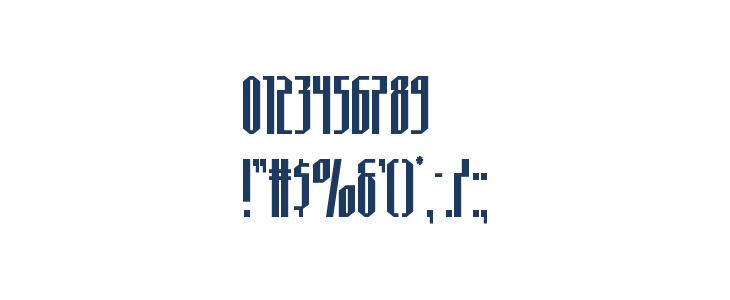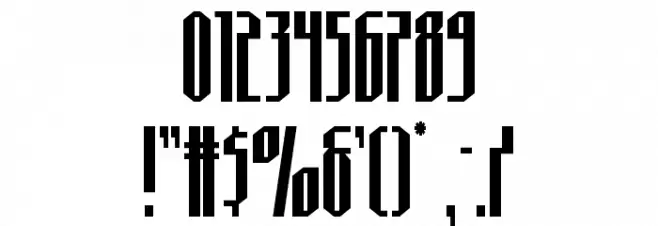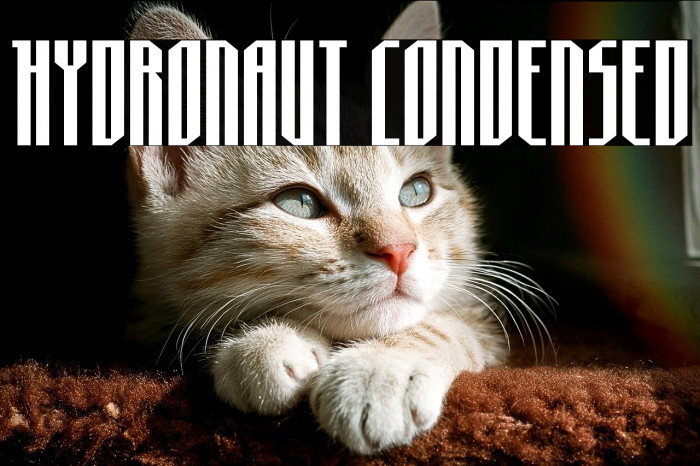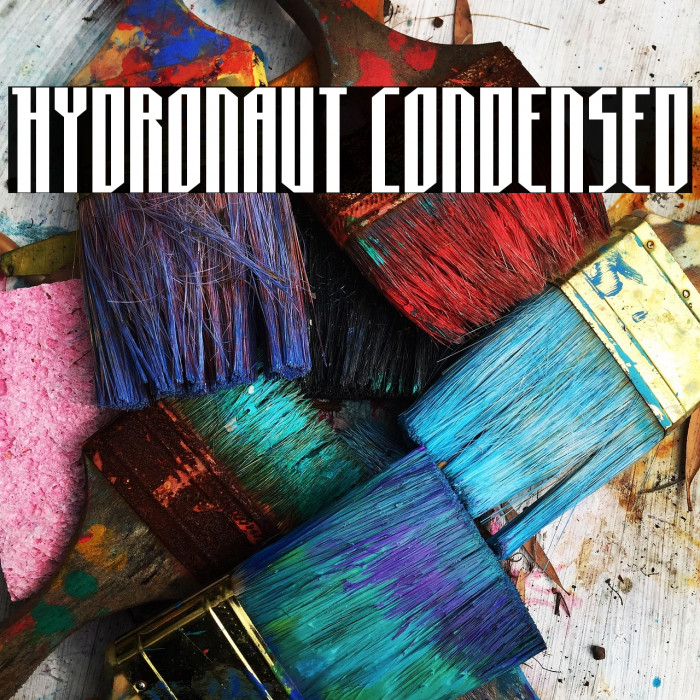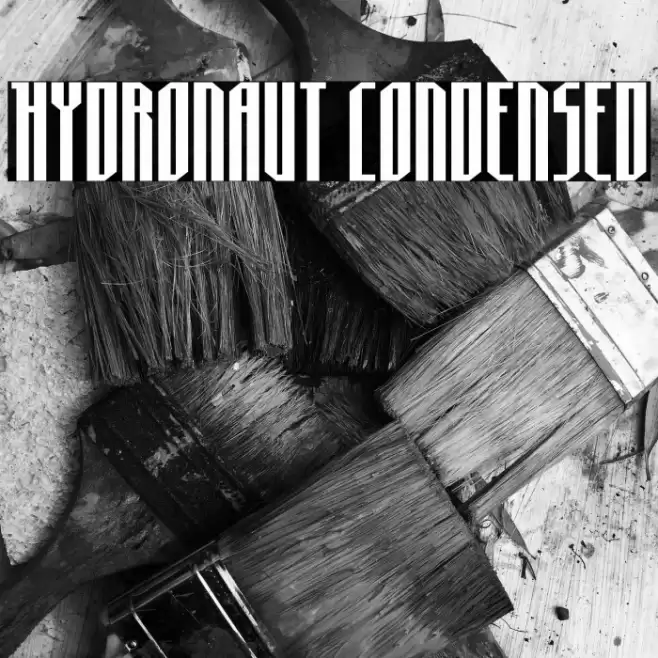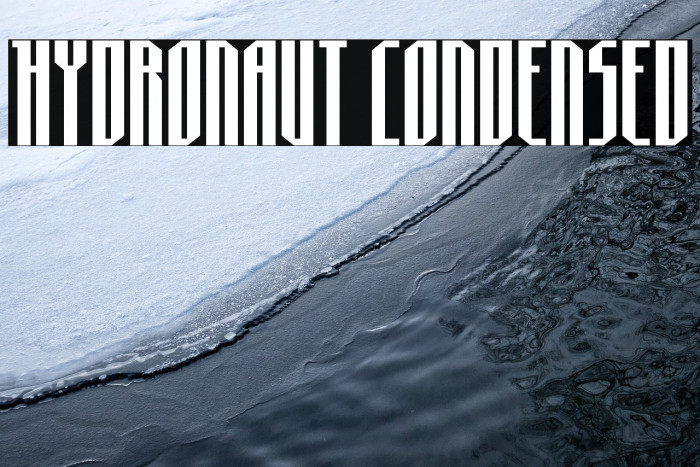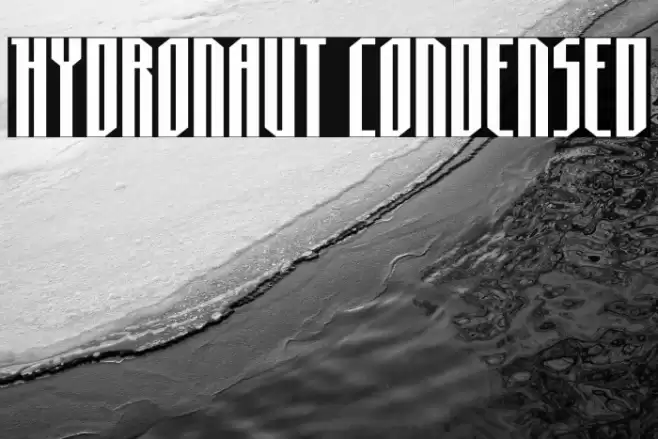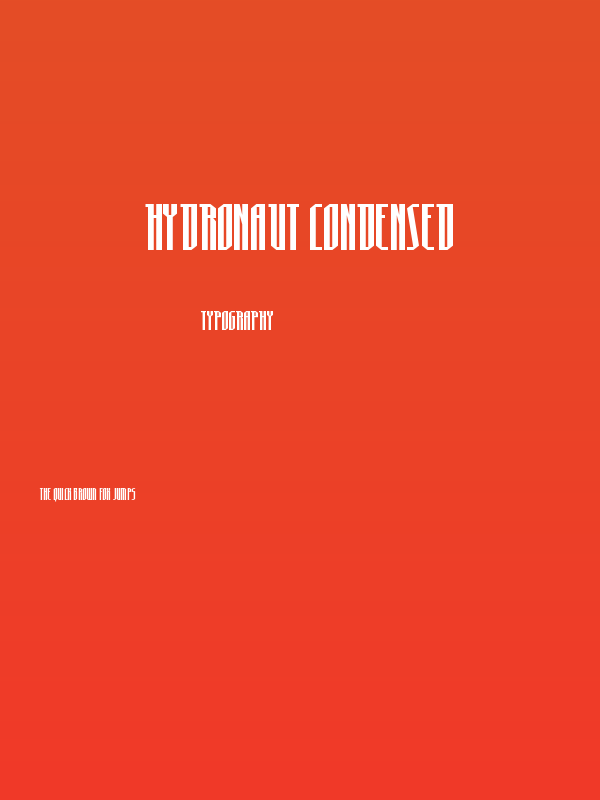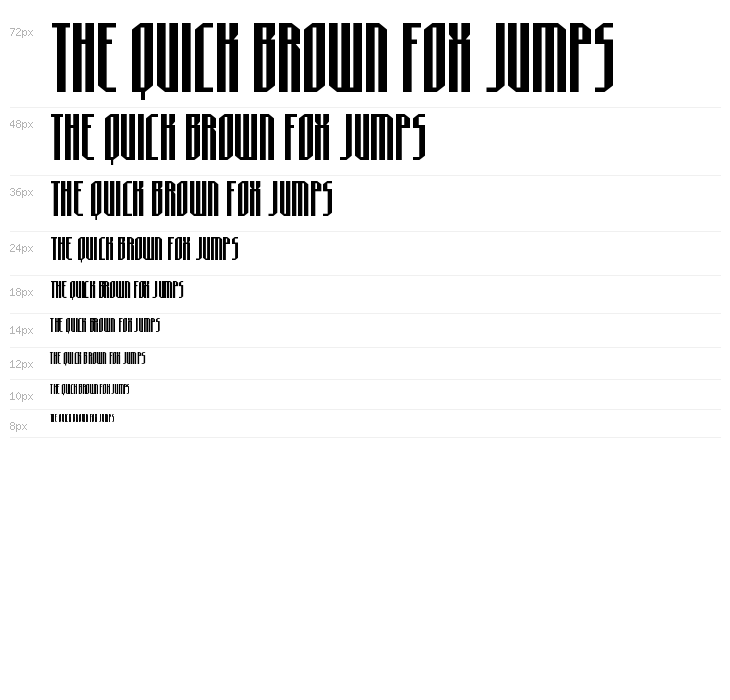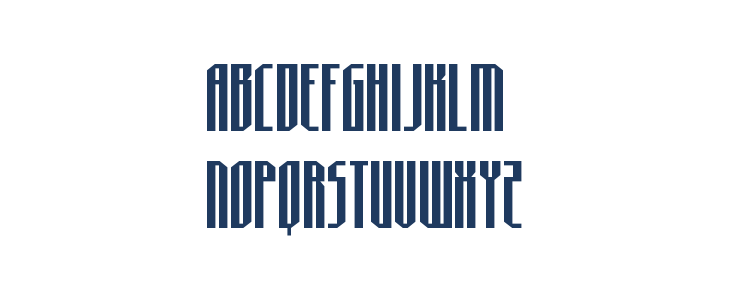
Hydronaut Condensed Font
Hydronaut Condensed Description
This font features a bold and condensed style, characterized by its tall, narrow letterforms and sharp, angular edges. The uppercase and lowercase letters maintain a consistent height, creating a uniform appearance. The geometric design is modern and sleek, with a futuristic feel. The numbers and special characters follow the same condensed and angular style, ensuring cohesion across all elements. The font's distinctiveness makes it suitable for attention-grabbing headlines and impactful designs.
| Proposed Projects | Ideal for futuristic branding, sci-fi posters, video game titles, and tech-related designs. |